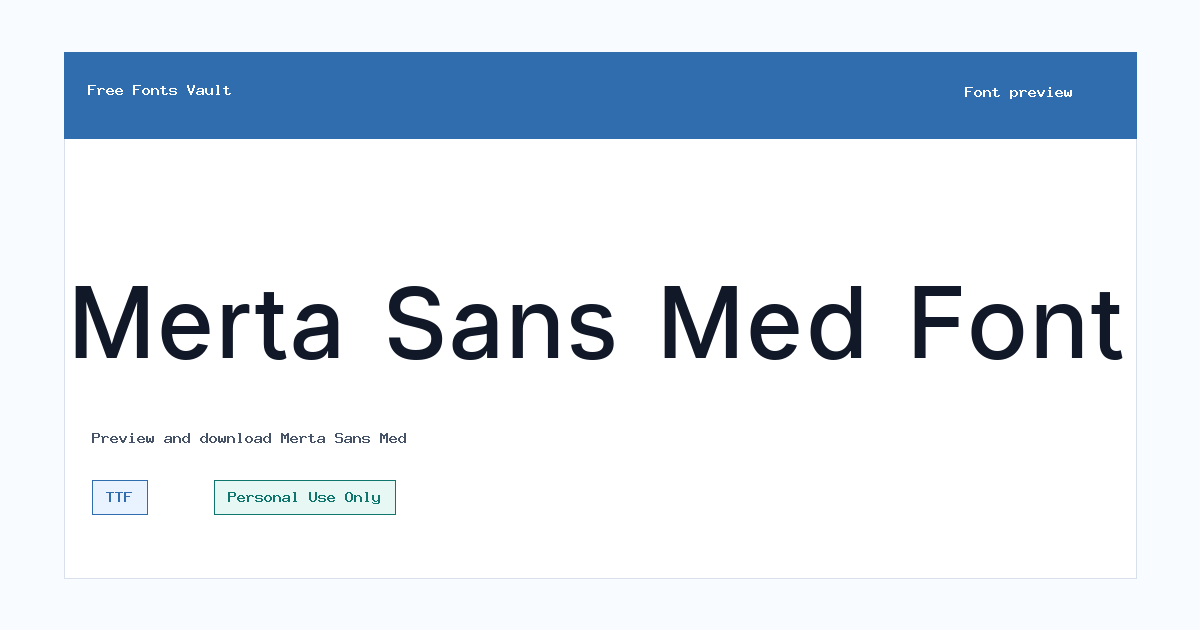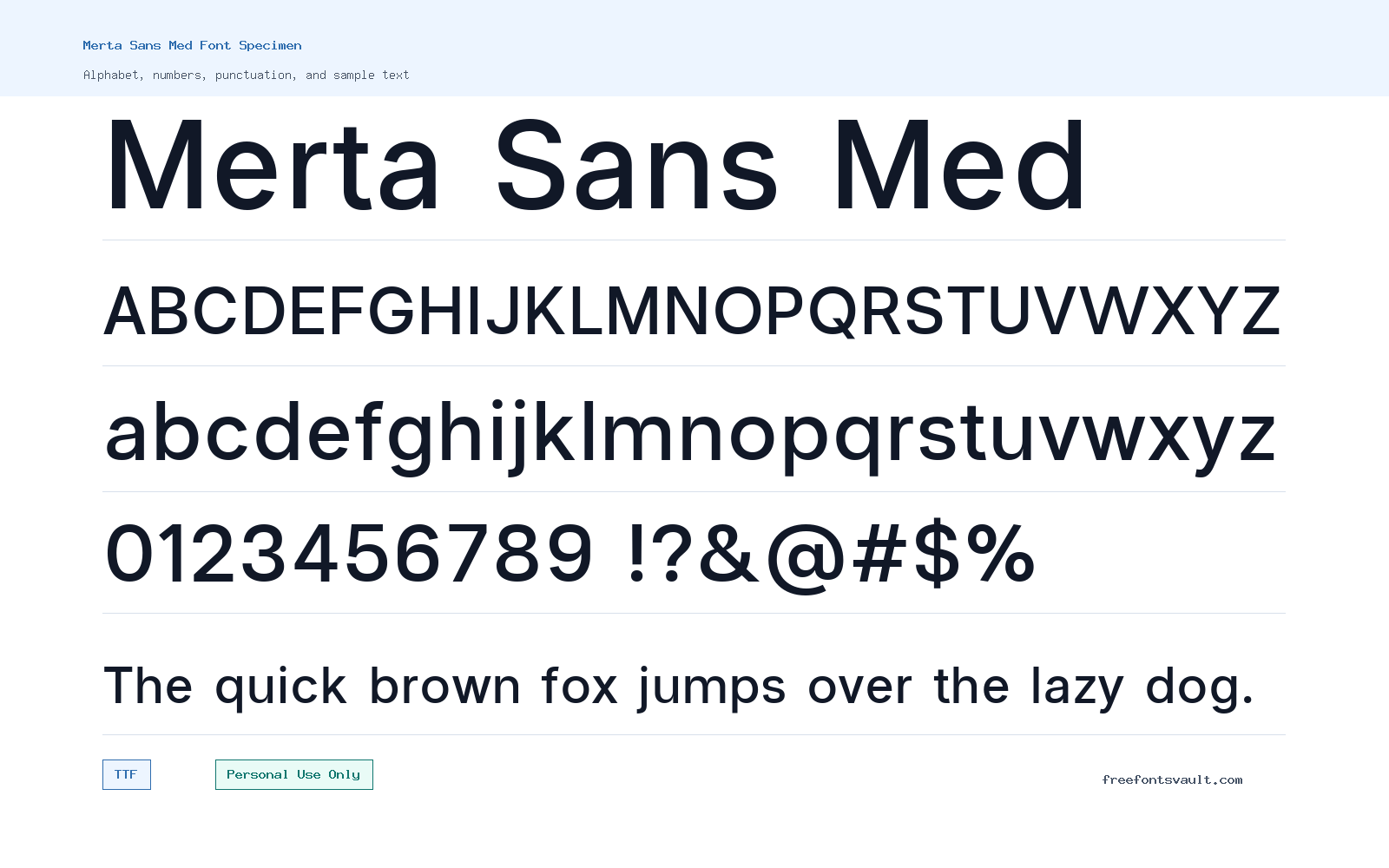
Merta Sans Med
- Designer Diki Pradipta Tri Atmojo
- Foundry Lettertype Studio Co.
Merta Sans Med font.
Merta Sans Med is a medium-weight sans serif font from Lettertype Studio Co., credited to designer Diki Pradipta Tri Atmojo. It is a practical choice to test when you need a clean, steady sans serif style for personal design work.
About Merta Sans Med
Merta Sans Med sits in the middle-weight range, with a listed font weight of 500. That makes it useful when regular text feels too light but a bold style would feel too heavy. Because the available file is a TTF font in a normal style, it should be easy to install and test in common design apps, word processors, and layout tools. The name and license information identify it as part of a sans serif family, so visitors should expect a clean, non-serif appearance rather than a decorative script or display face.
Use the preview area to test the exact words you plan to design with, especially if the project depends on brand names, short headlines, packaging text, or social graphics. A medium sans serif can work well for poster titles, logo drafts, web mockups, menu labels, presentation covers, and simple editorial headings, but the final fit depends on spacing, letter shapes, punctuation, and how the font handles uppercase and lowercase text. Try it at several sizes before committing. For logo work, check whether key letters feel balanced together and whether the wordmark still reads clearly when scaled down. For posters and banners, test longer phrases so you can see whether the line length feels open or crowded.
Merta Sans Med may also be useful for interface mockups and landing-page concepts where you want a straightforward sans serif voice without relying on a system font. In web mockups, test it in navigation labels, buttons, hero headlines, and small captions separately. A font that looks strong in a large heading can feel different in small UI text, so check both. If you are building a real website, remember that performance, browser support, font conversion, and licensing all matter before launch.
For pairing, keep the supporting type simple. A medium sans serif often pairs well with a lighter sans serif for body copy, a restrained serif for editorial contrast, or a heavier weight from the same family if you have legal access to the full family. Avoid pairing it with another font that has a very similar weight and structure unless the difference is intentional; close-but-not-matching combinations can make a layout feel accidental. If Merta Sans Med is used for titles, let the body font stay quiet and readable.
- Medium-weight sans serif style with a listed weight of 500
- Suited to short display text, headings, logo drafts, and layout mockups
- Personal poster titles and social media graphics
- Logo concept drafts and wordmark testing
- Presentation covers, section headings, and clean title layouts
- Short branding experiments where a medium sans serif weight is useful
Merta Sans Med is credited to designer Diki Pradipta Tri Atmojo and foundry Lettertype Studio Co.
What kind of font is Merta Sans Med?
It is listed as a sans serif font in a medium weight. The available variant is normal style with a 500 weight.